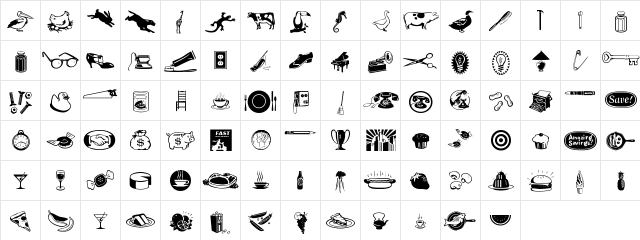
Journal Dingbats 1 Regular Font Preview
Journal Dingbats 1 Regular
Journal Dingbats 1 Regular Font Details
Design Context for Journal Dingbats 1 Typeface
Journal Dingbats 1 takes a measured approach to typography — its balanced proportions and neutral character make it a reliable workhorse for both digital and print work.